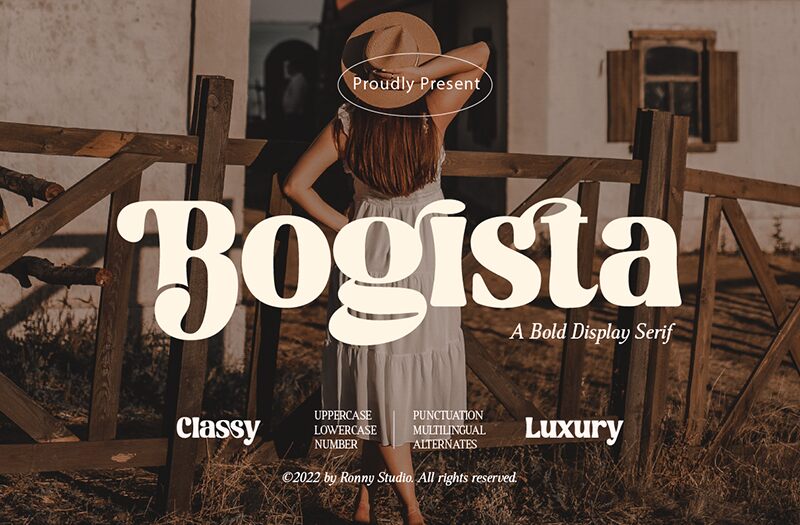
Bogista, crafted by Ronny Studio, presents a bold serif font that exudes confidence and sophistication. Its weighted strokes and serifs add a distinctive character to each letter, creating an aesthetic that is both modern and timeless. The contrast between thick and thin lines in Bogista gives it a dynamic texture that catches the eye, making it perfect for headlines, branding, and advertising that demand attention.
The elegance of this typeface lies in its balance-robust yet refined-allowing designers to convey messages with clarity and impact. Whether embossed on the cover of a book or splashed across digital banners, Bogista's versatility shines through. Its assertive presence can anchor any creative project needing a touch of gravity without sacrificing style.